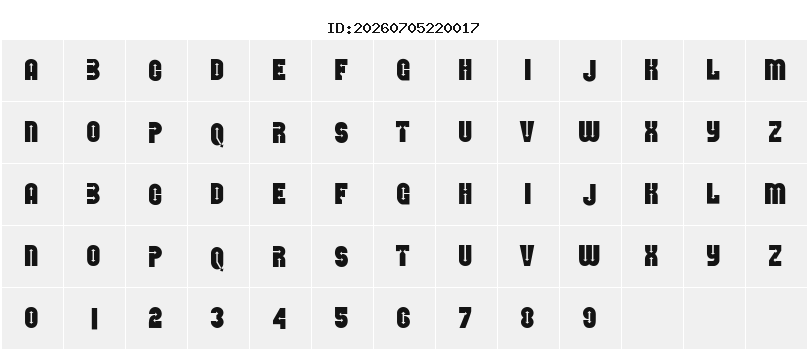
Direction Preview
• Font Name: Direction
• Full Font Name: Direction-Regular
• PostScript Name: Direction-Regular
• Character Count: 251
• Manufacturer: Digitized by Dan X. Solo. Software by Dover Publications, Inc
About Direction.ttf
Direction.ttf is a modern, elegant sans-serif font designed for ultimate readability and visual harmony. Perfect for branding, headlines, web design, and print materials.